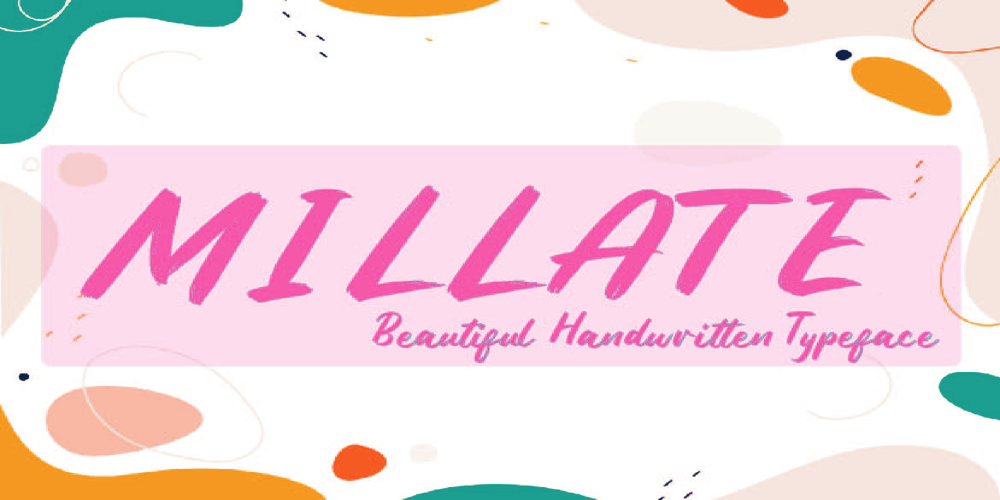
Millate Font Family was designed by akhmad rizki cahyadi and published by Mazkicibe. Millate contains 1 styles and family package options. Millate Font is Beautyful handwritten and modern font combined with a sweet touch and beautifully curved each letter. using a touch of soft curves so that it is pleasing to the eye.Millate Font Spirit is great for: Wedding invitations, fashion magazines, logos, signatures, and suitable for watermark photography.